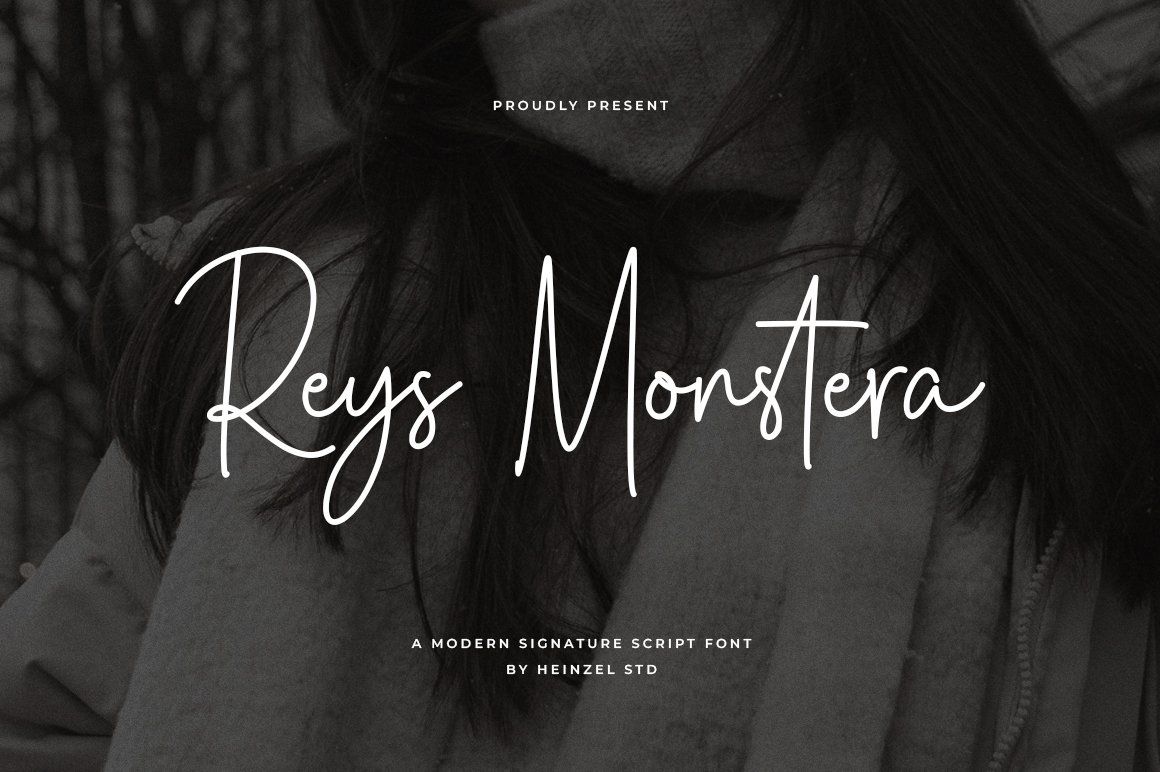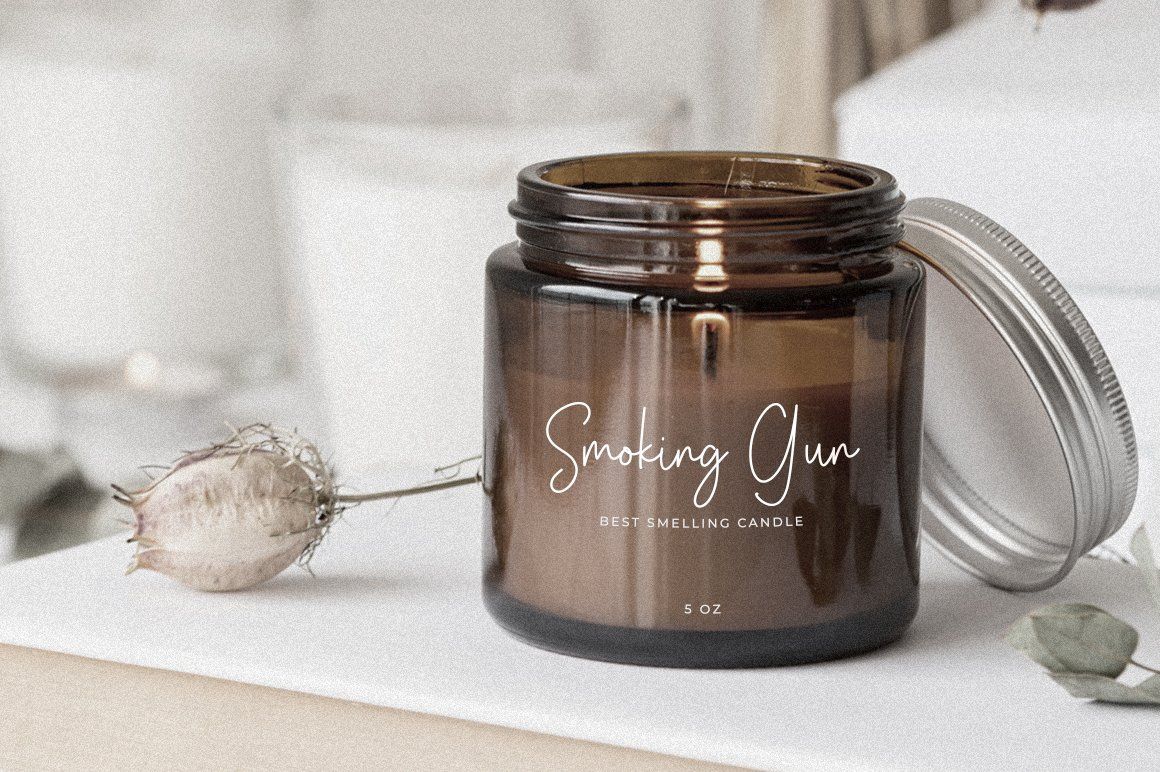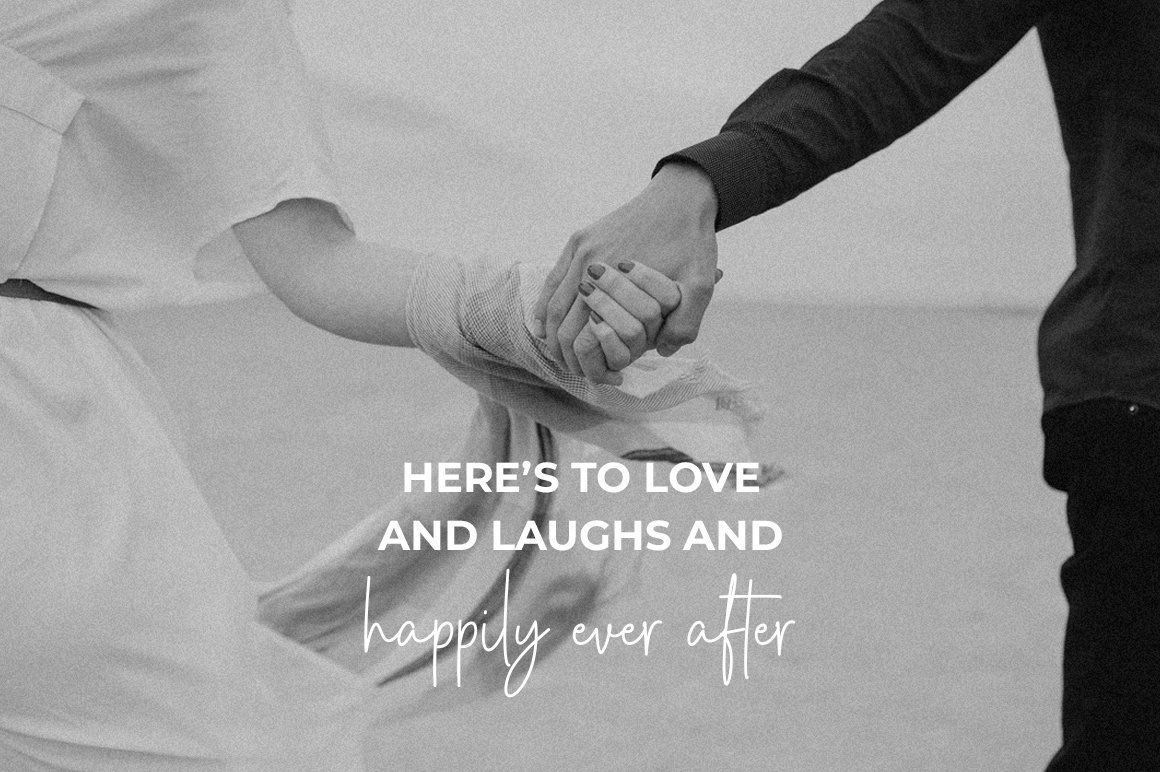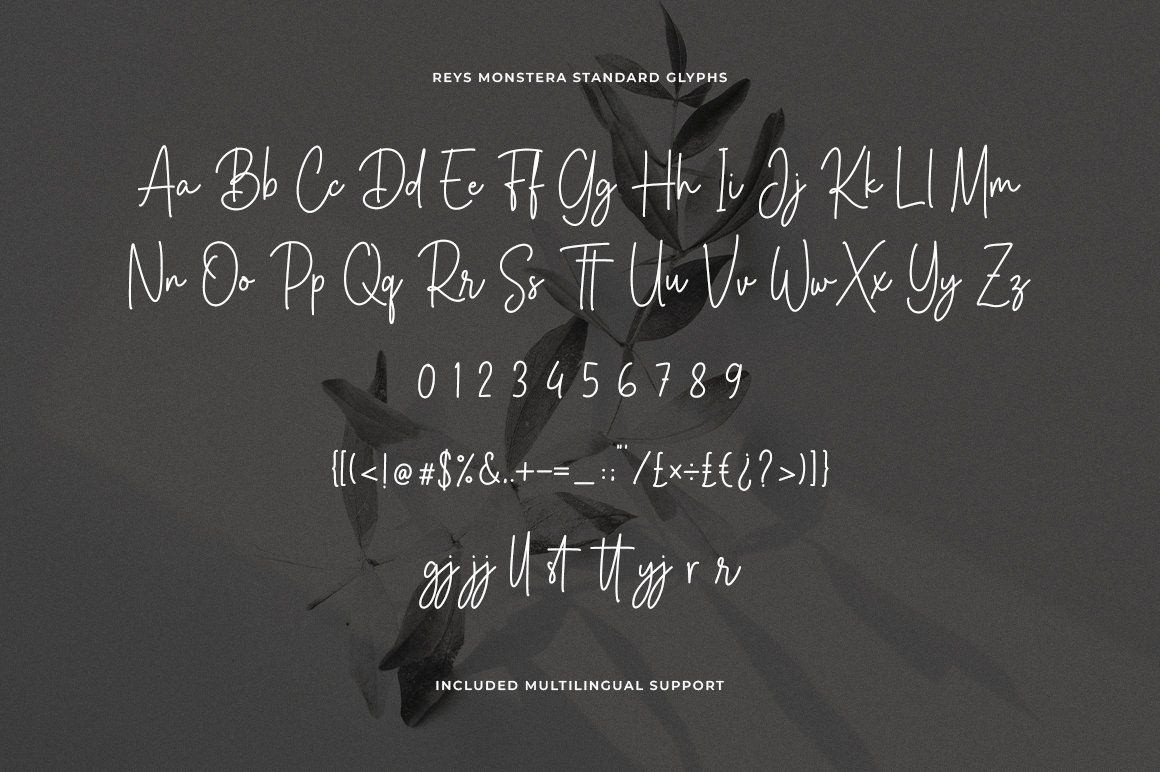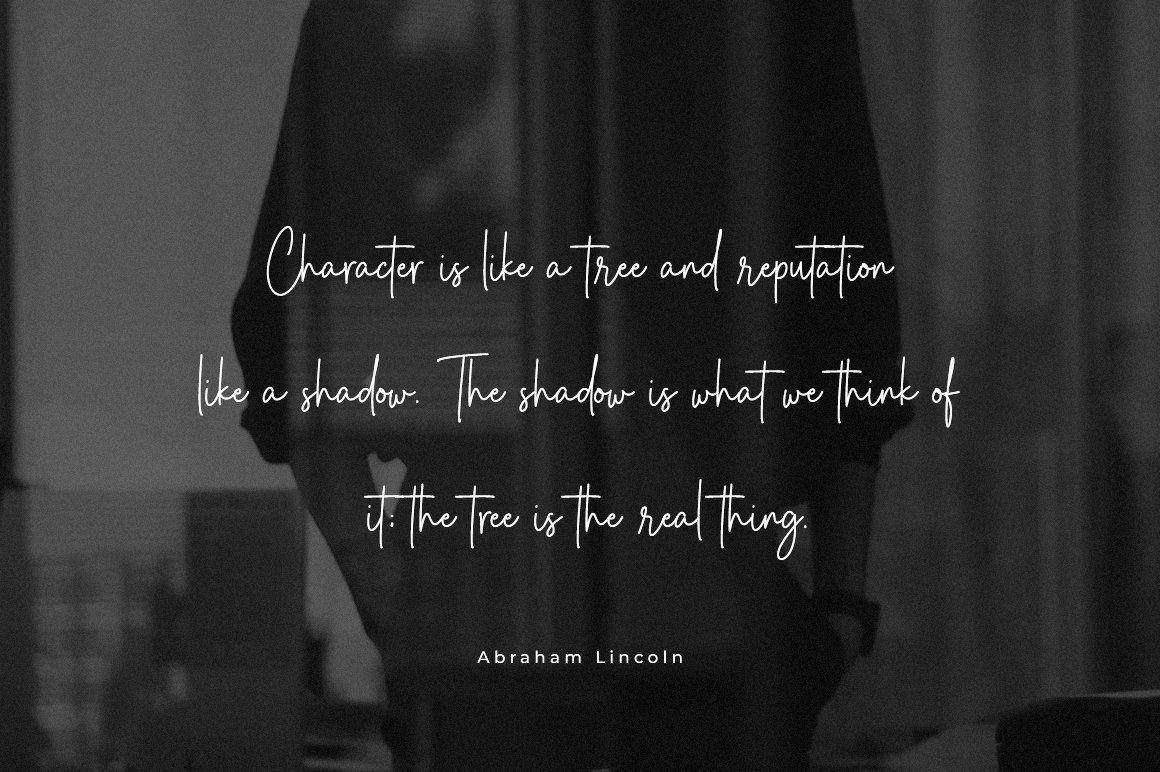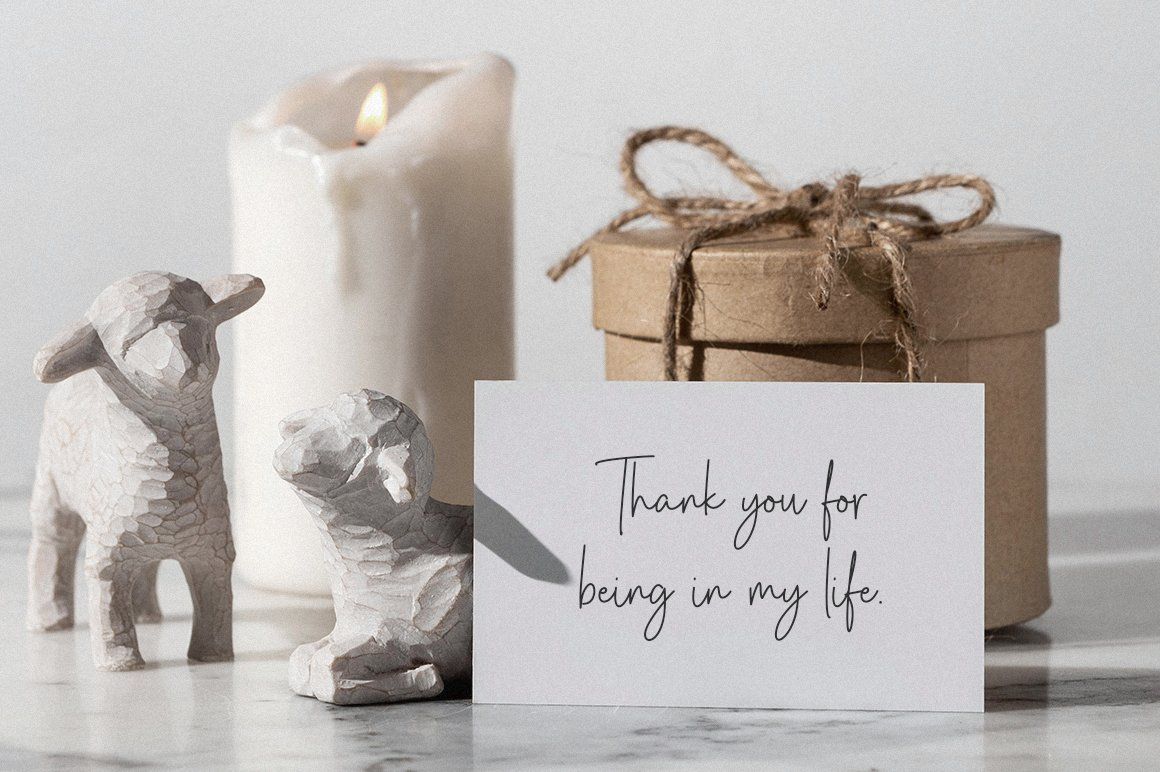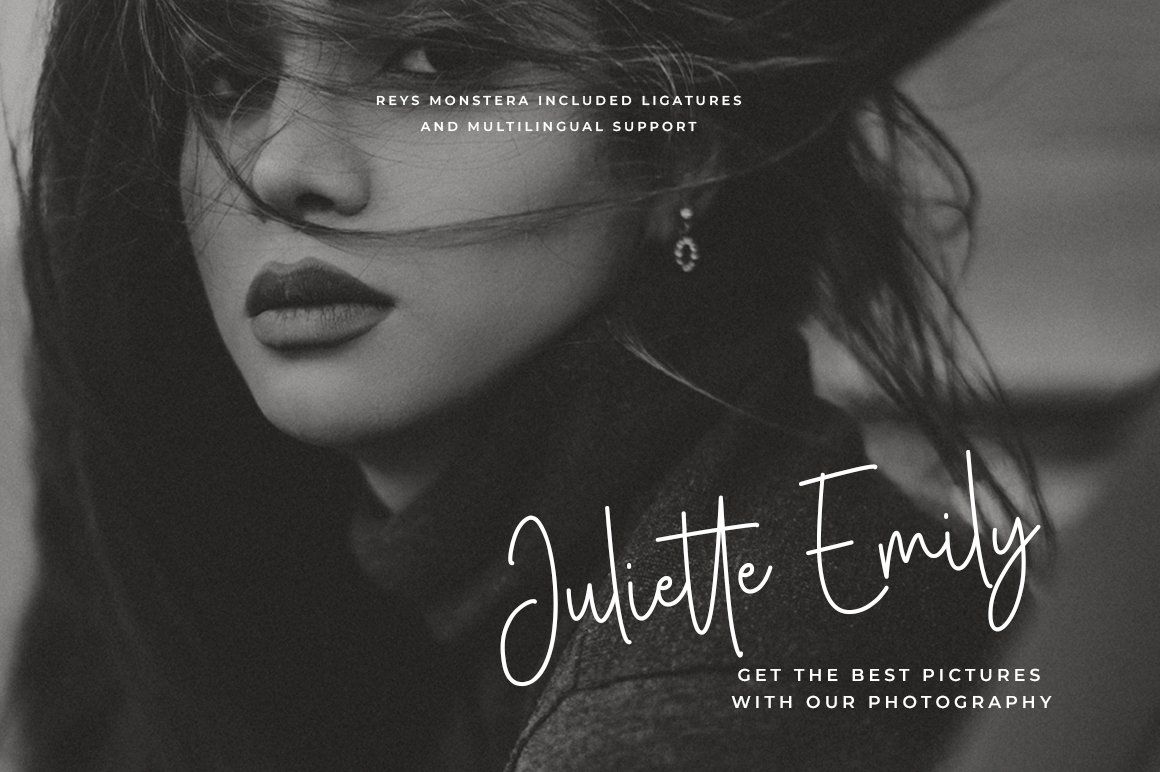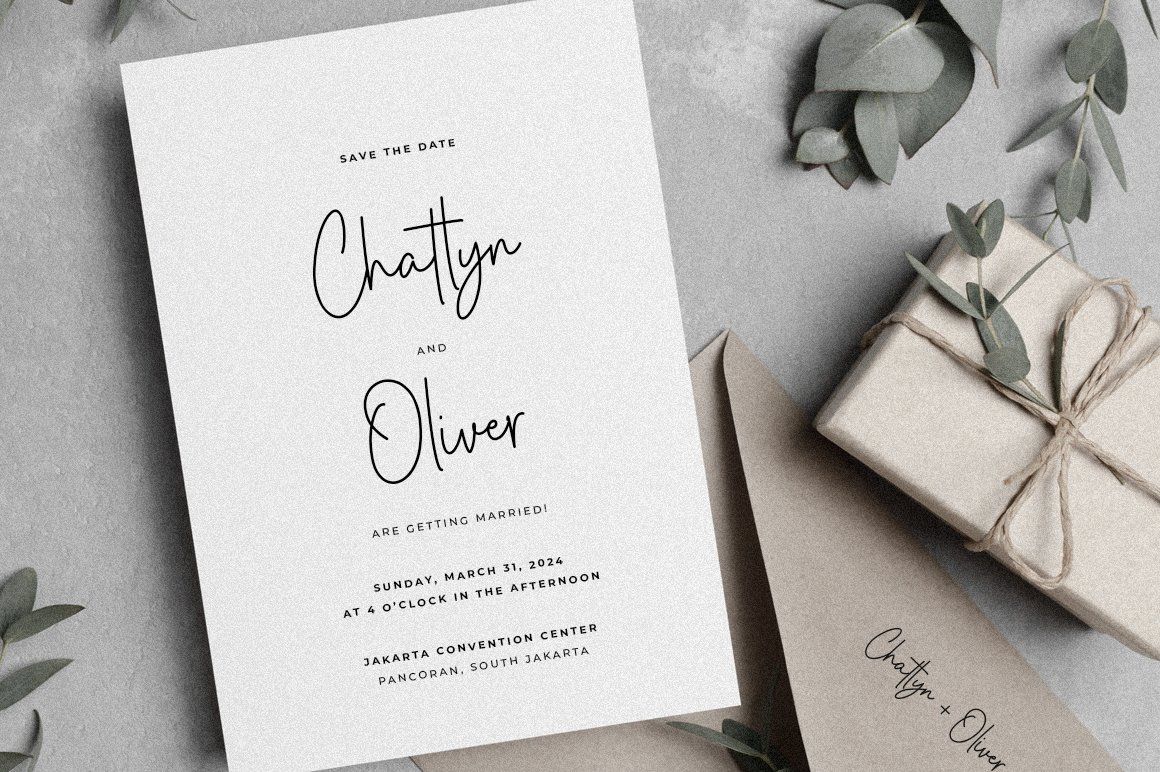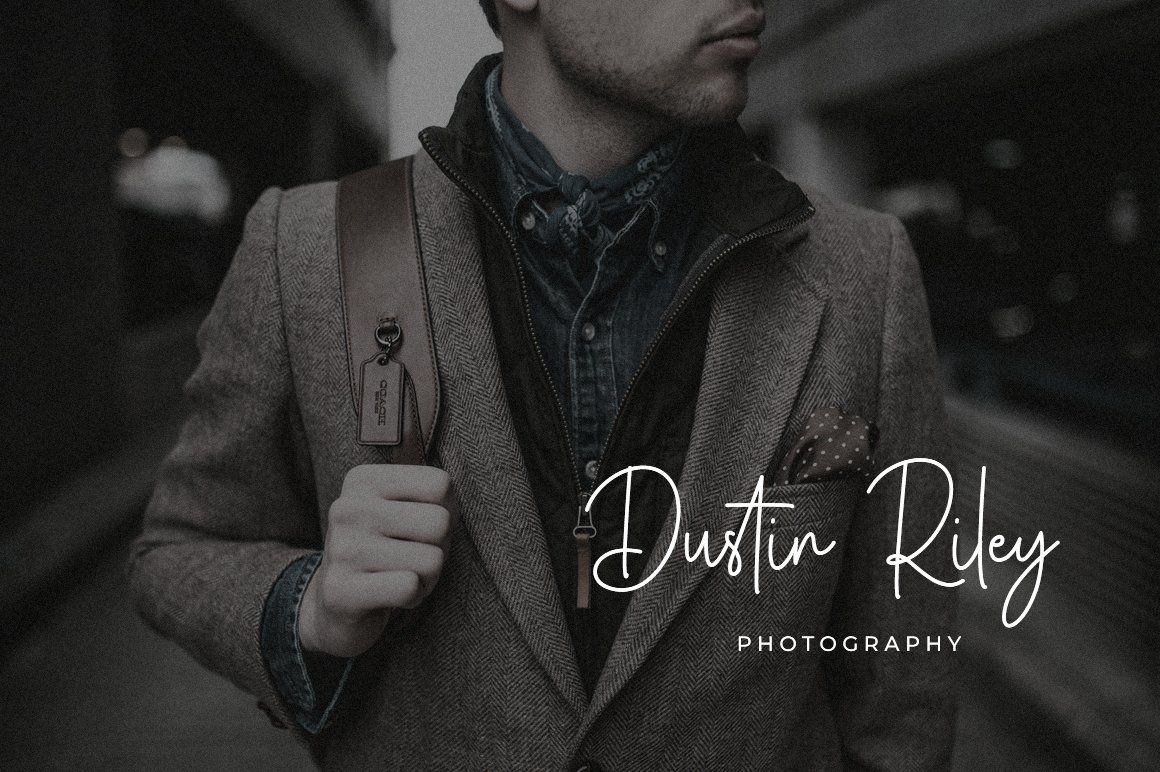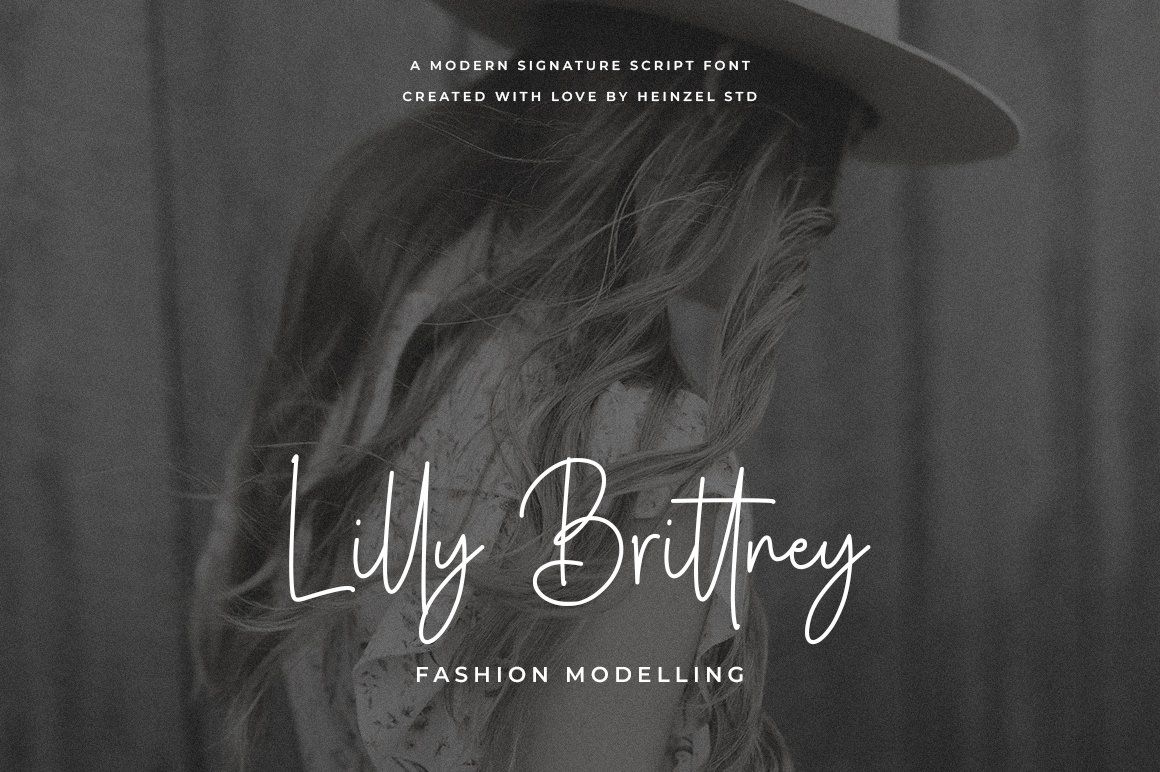
Reys Monstera is a modern signature script font, described by an elegant touch, perfect for your favorite projects. It looks stunning on wedding invitations, thank you cards, quotes, greeting cards, logos, business cards, social media posts, marketing materials, and every other design that needs a handwritten touch. Fall in love with its incredibly distinct and timeless style and use it to create spectacular designs!